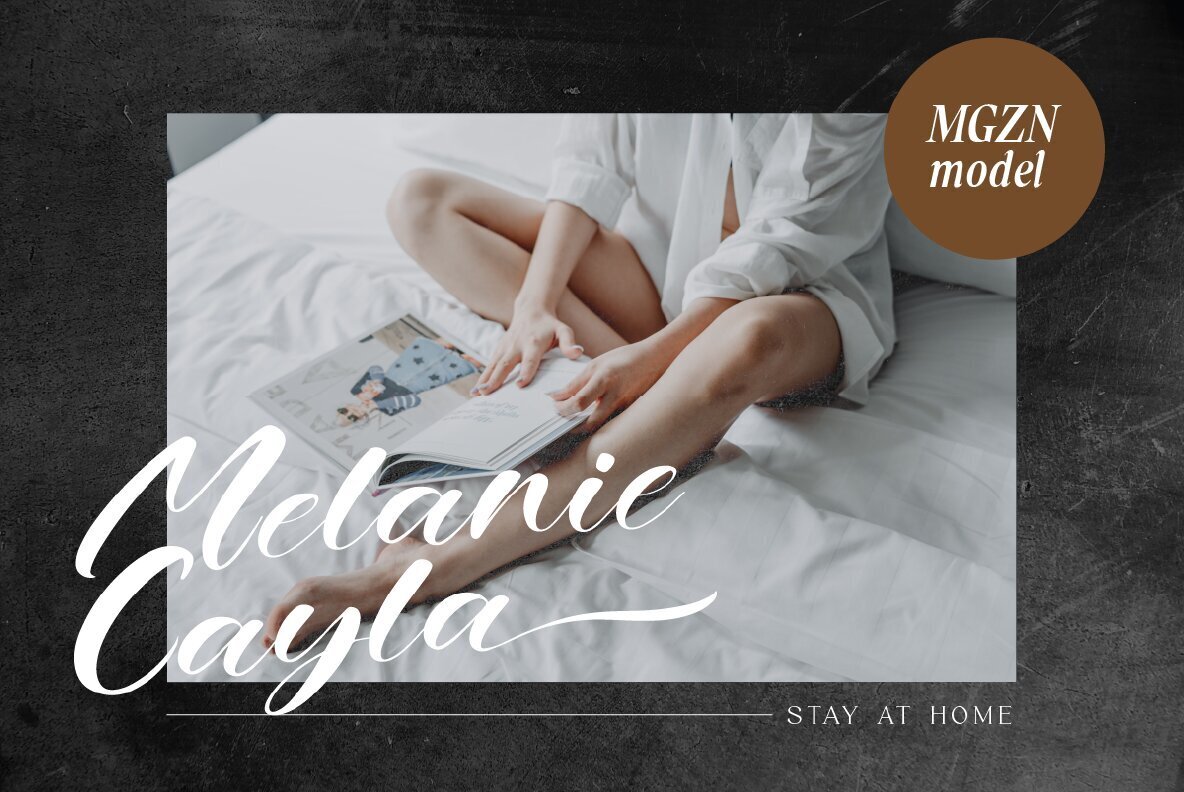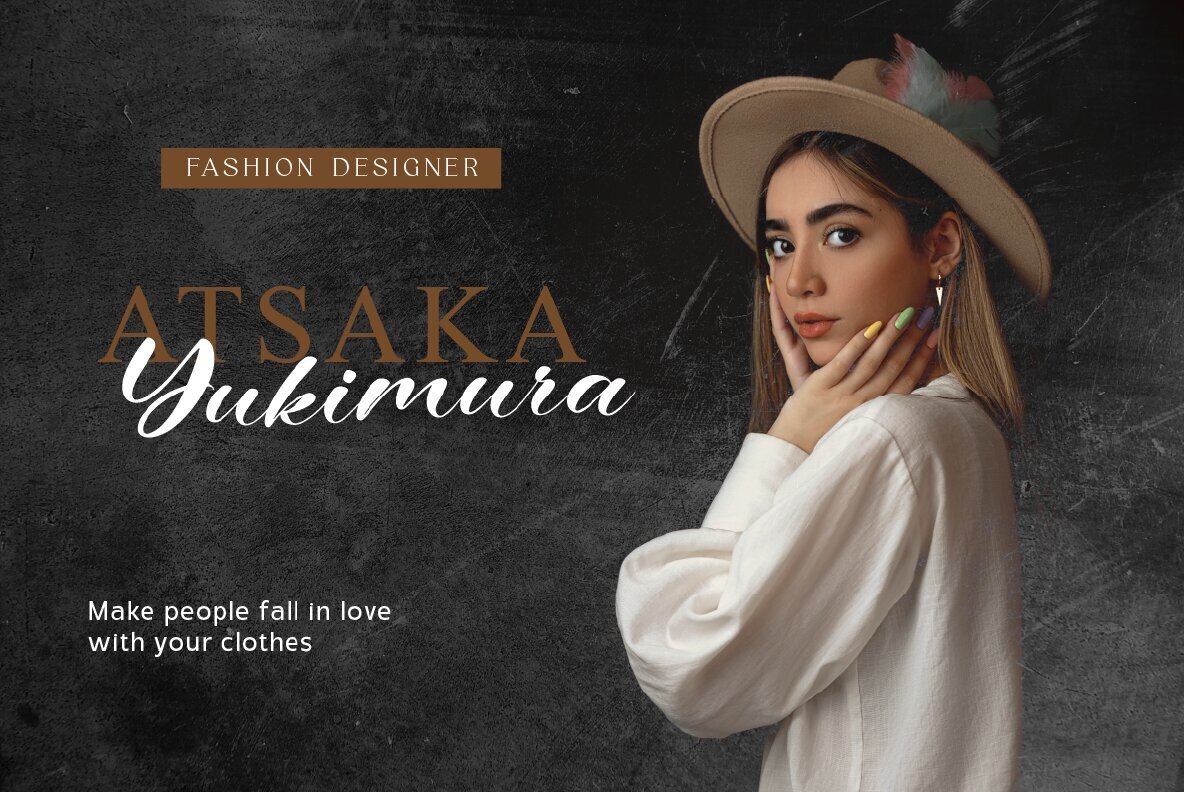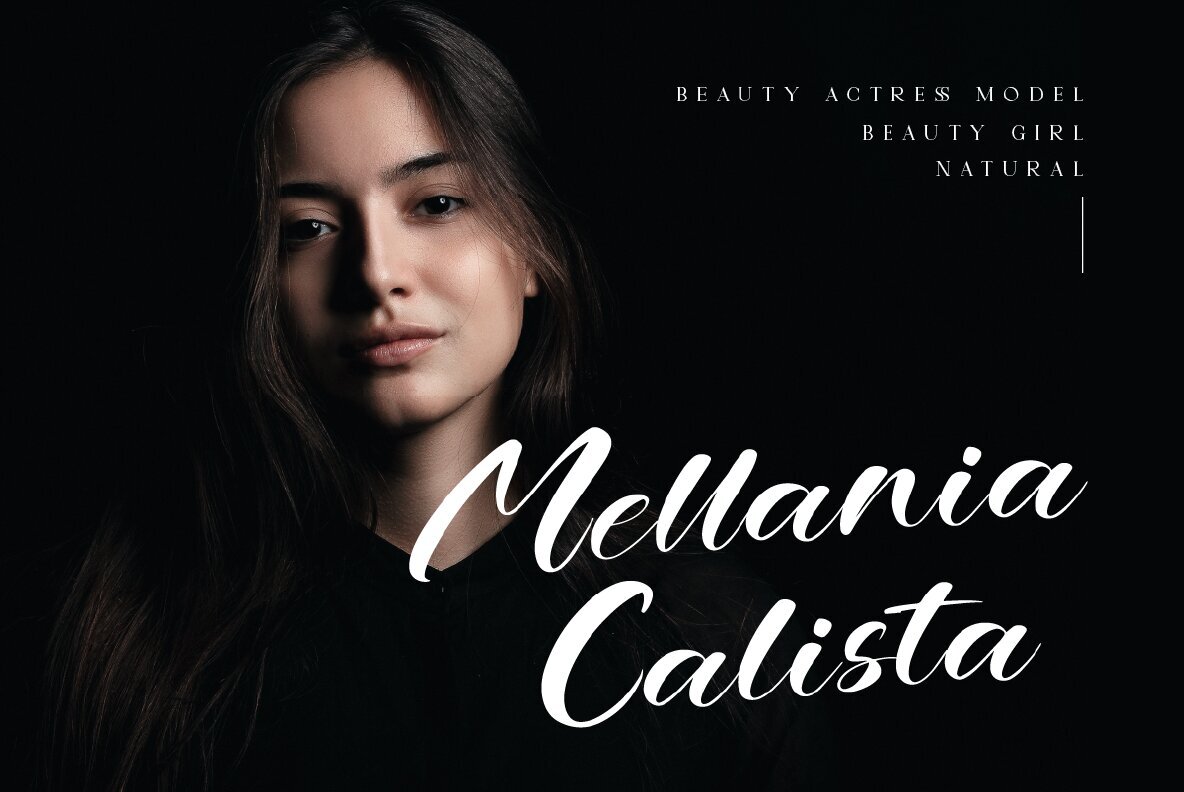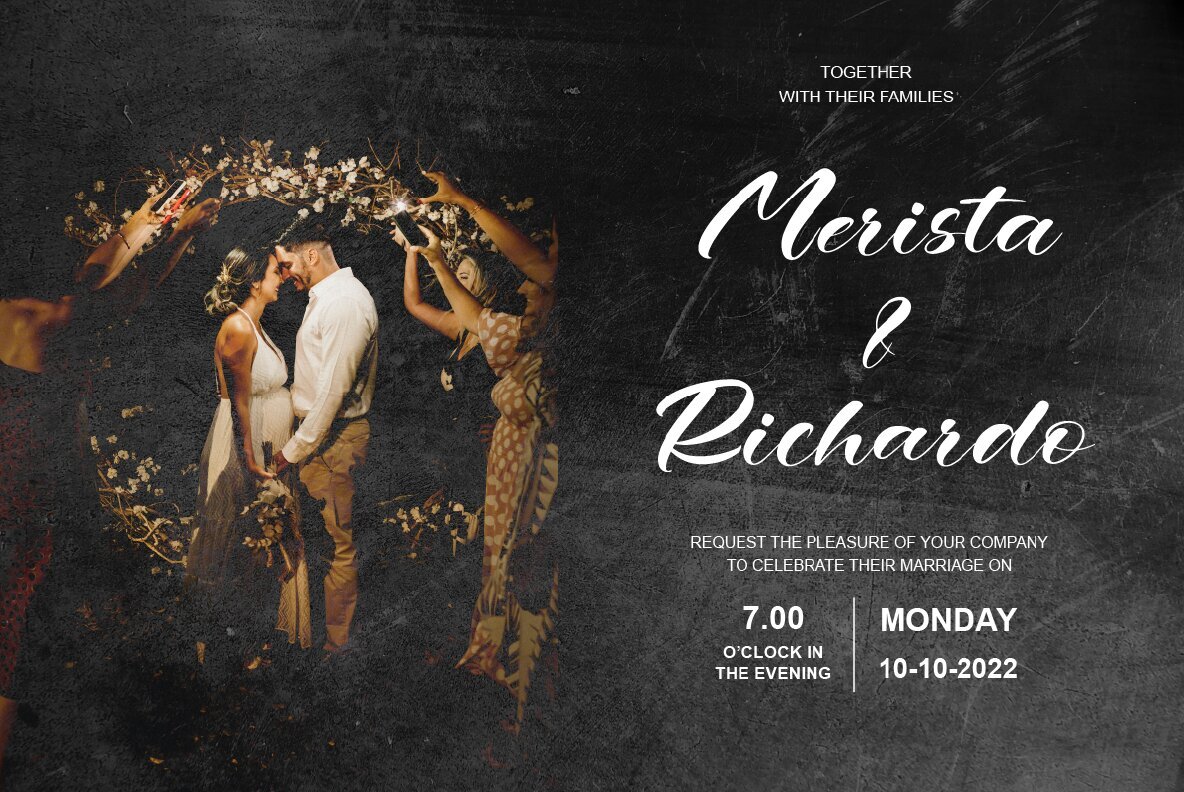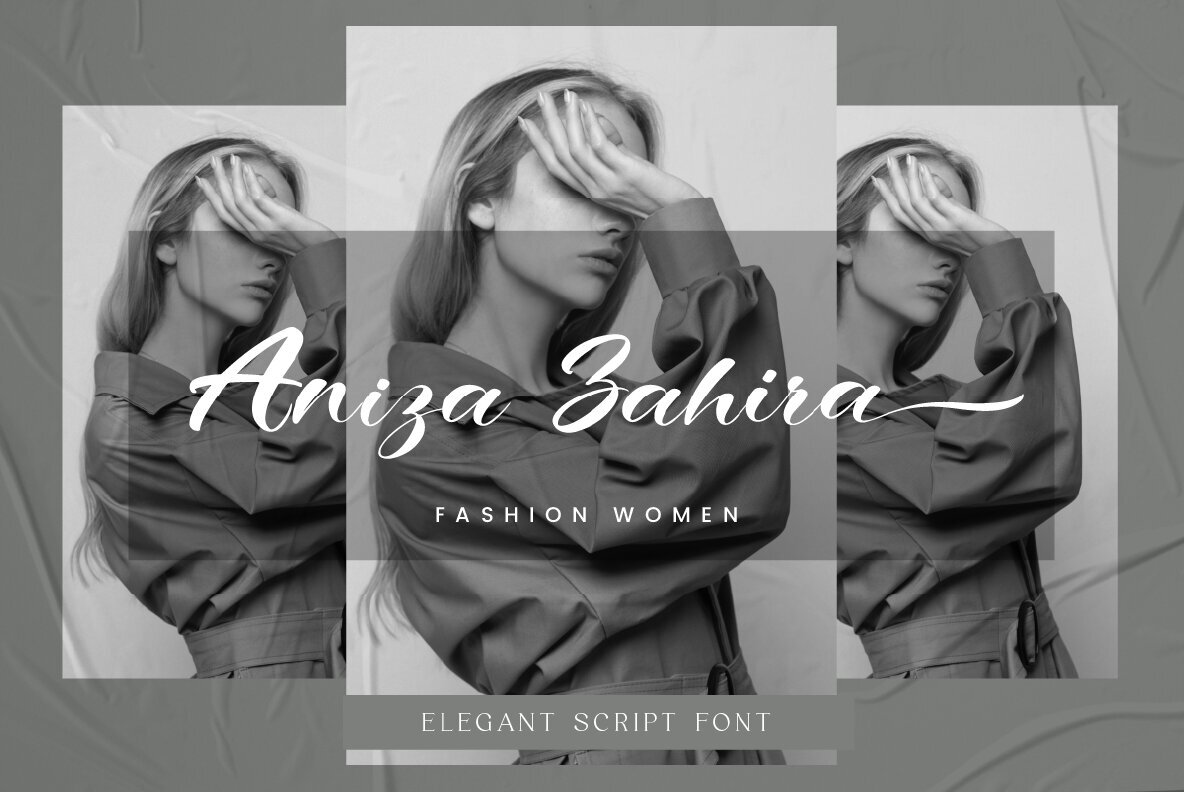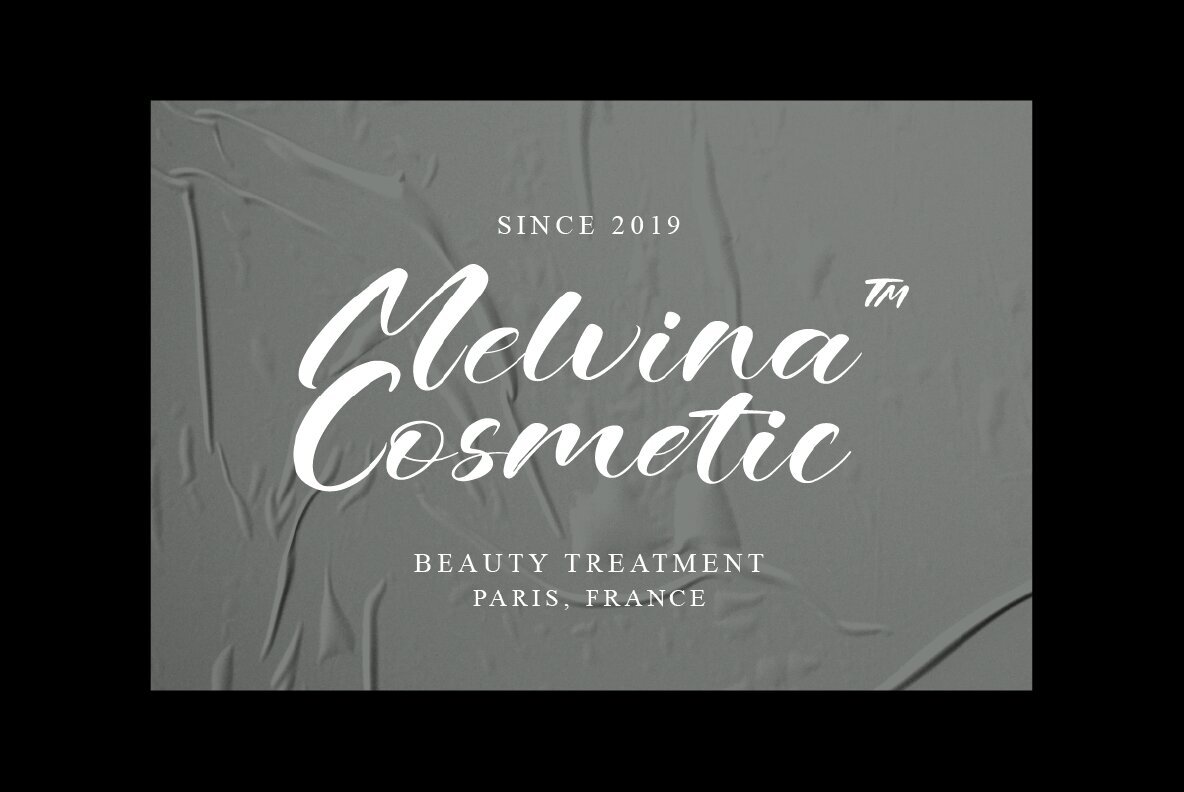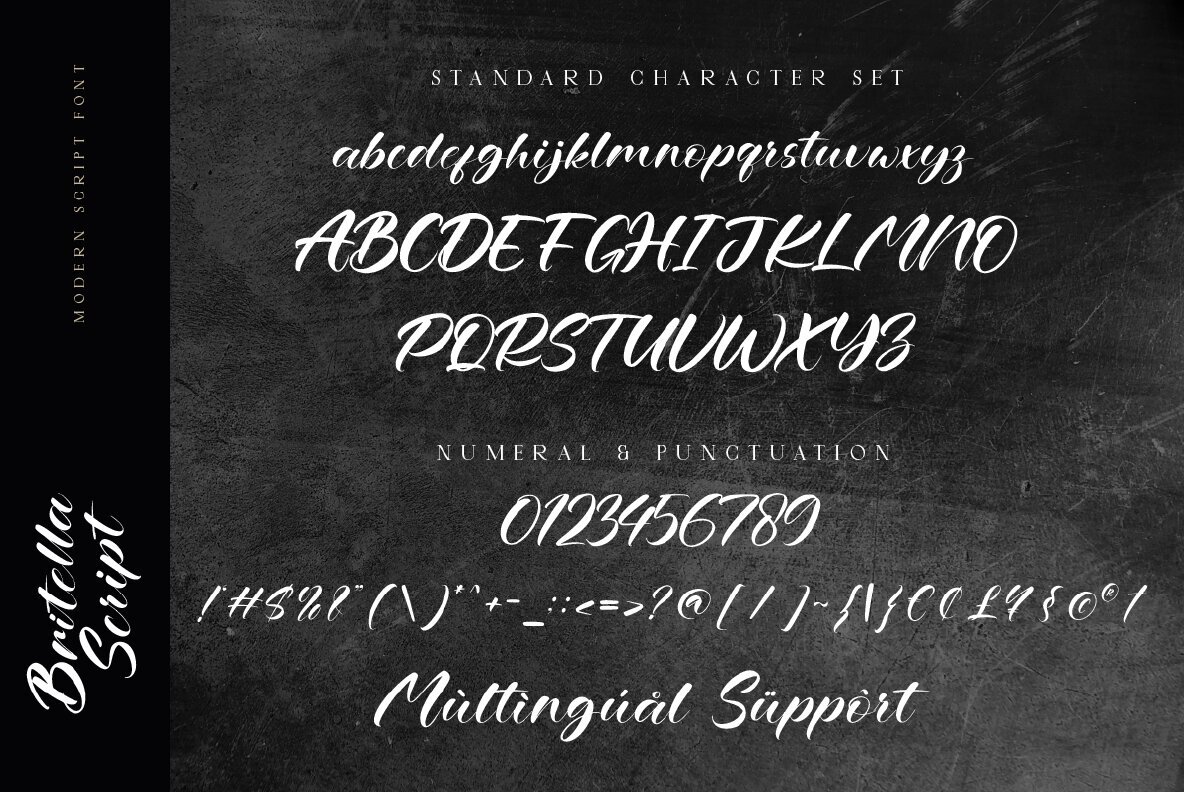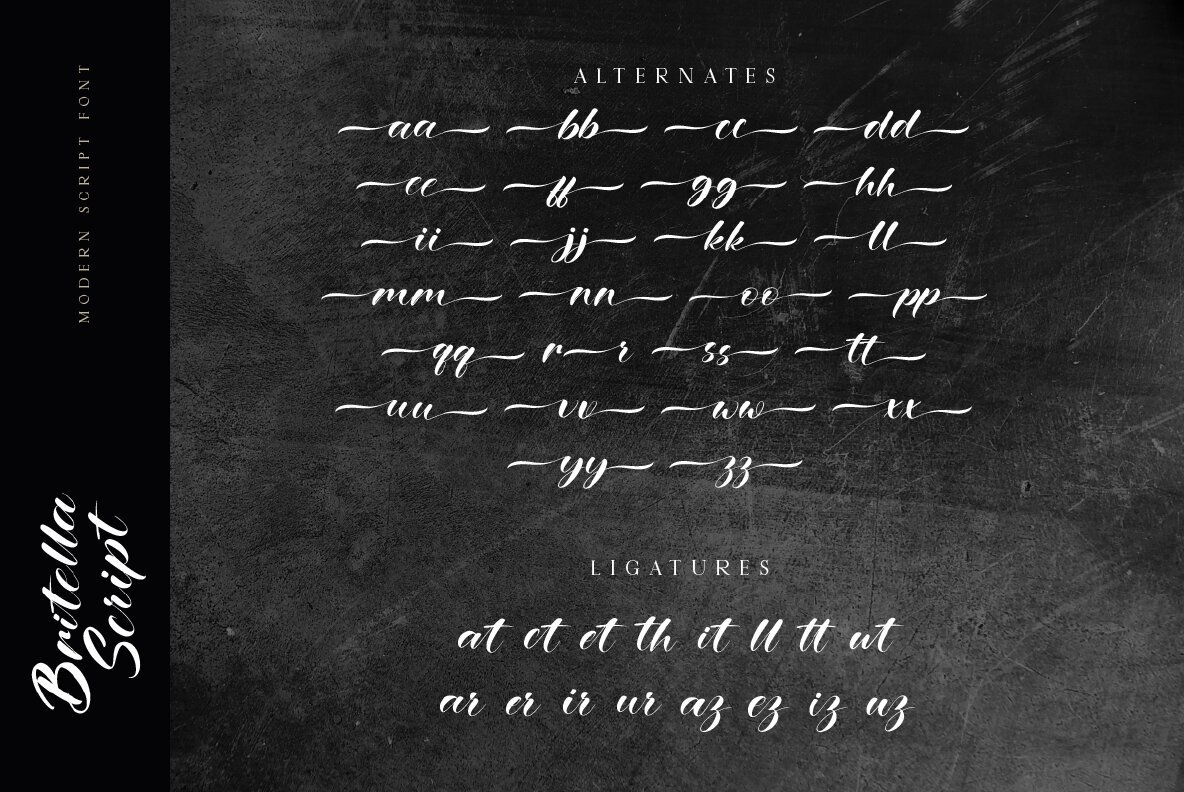
Bitella Font
Britella Script
The Britella Script Font offers a natural and modern script style, perfect for adding a touch of elegance to your designs. Whether you're creating logo designs, brand imagery, quotes, product packaging, merchandise, or social media posts, this font guarantees an eye-catching appeal. For any questions or further information, feel free to contact us. Enjoy crafting with Britella Script, and thank you for your support!Britella Script: A Modern Script with Stylish Appeal